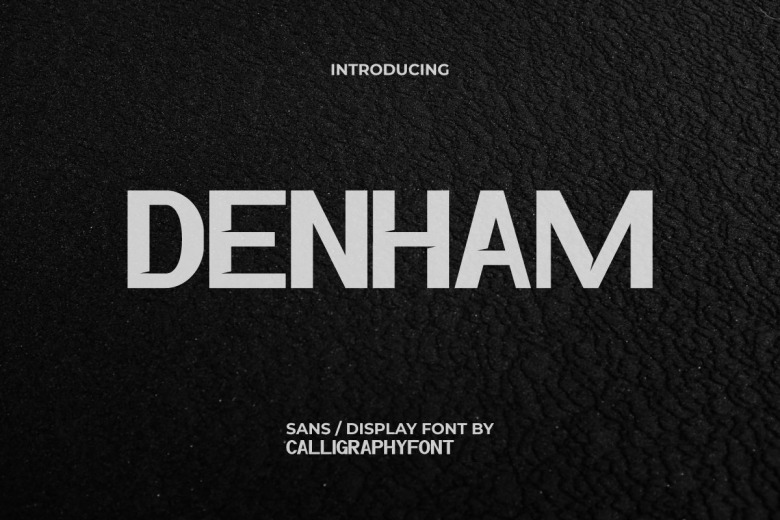
Denham Font
Introducing Denham Font is a modern sans serif typeface with 2 styles. This font is suitable for a logo, branding, sport, apparel, t-shirt, and other design projects. Incorporated with unique characters that will make your designs standout. The font is great for a variety of industries: entertainment, games, sports, techno, and others.
Denham Sans Serif Font